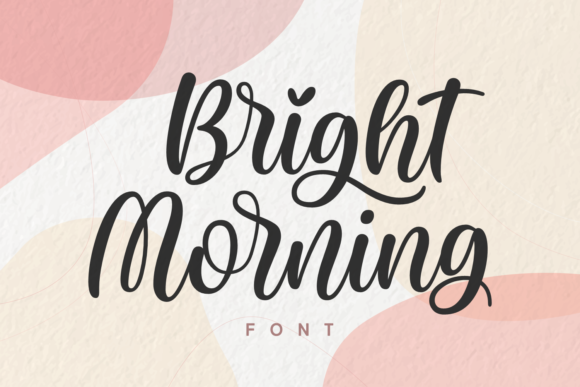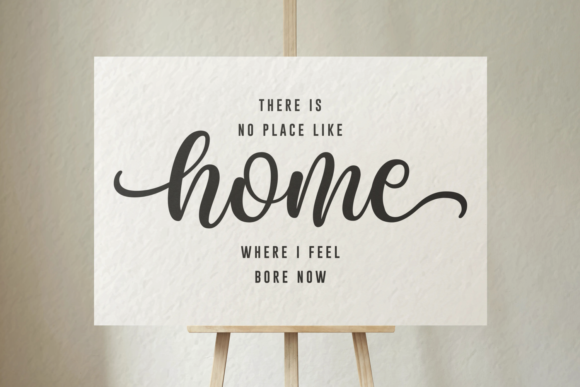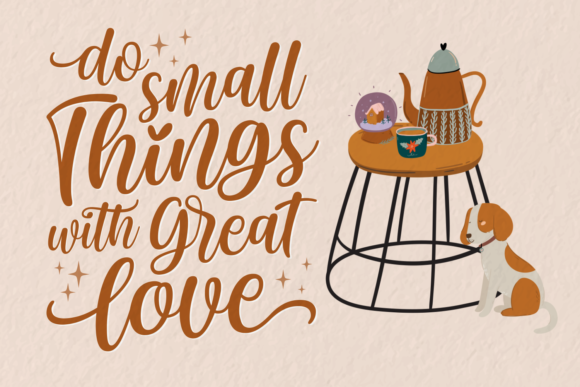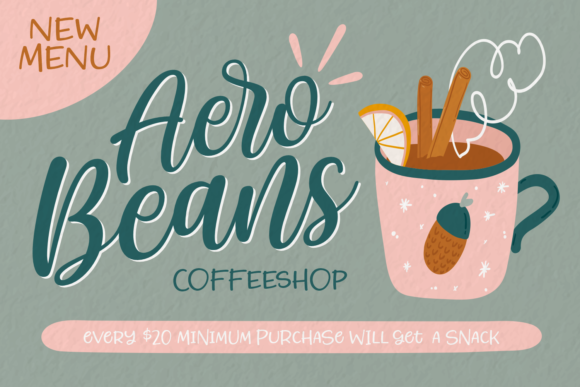
Bright Morning is an adorable quirky handwritten font. It will add an incredibly joyful touch to your designs.
Fall in love with its playful style and use it to create beautiful stationary art, eye-catching social media posts, and much more!